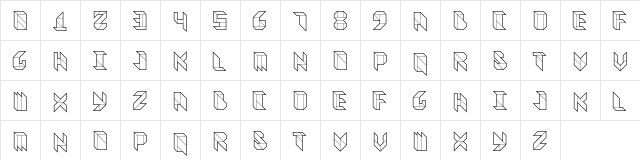
Vitreous Medium
| Designer | Elliott Hefford |
Design Context for Vitreous Typeface
Vitreous is a composed and adaptable typeface that performs quietly and consistently across a wide range of design contexts.